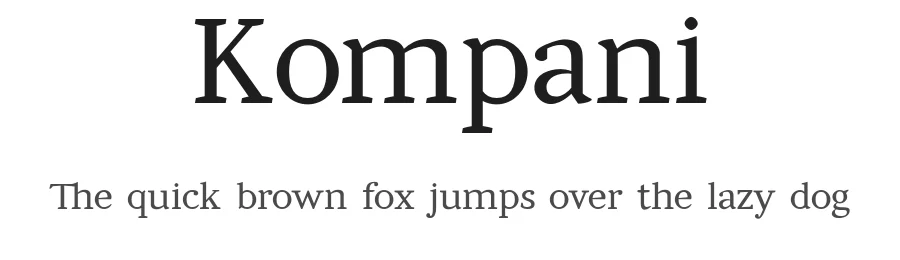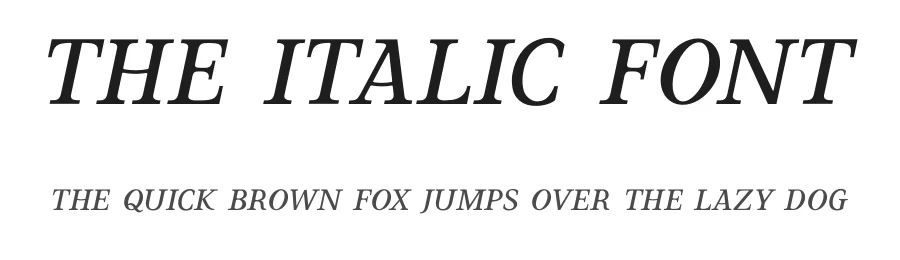
About Testuale Font
Testuale is a serif font. It includes 2228 glyphs, a regular weight, TTF (TrueType) format, and 354 languages. Testuale is free to download; check the license details on this page before commercial use. Serif fonts like Testuale work best for body text, editorial layouts, book covers, and classic branding.
Testuale ships with 11 OpenType features you can switch on in apps that support them (Illustrator, InDesign, Affinity, Figma, CSS font-feature-settings).
- Small capitals from capitals
- Historical ligatures
- Small capitals
- Variable font Β· axes: wght, ital
Testuale supports 354 languages.
Testuale Font is a versatile serif font that works for both headings and body text. Pair it with a contrasting sans-serif or slab serif font to add visual interest and a clear distinction between titles and body copy.
Testuale Font
Testuale Font is a serif typeface, ideal for logos, invitations, branding, and creative projects.